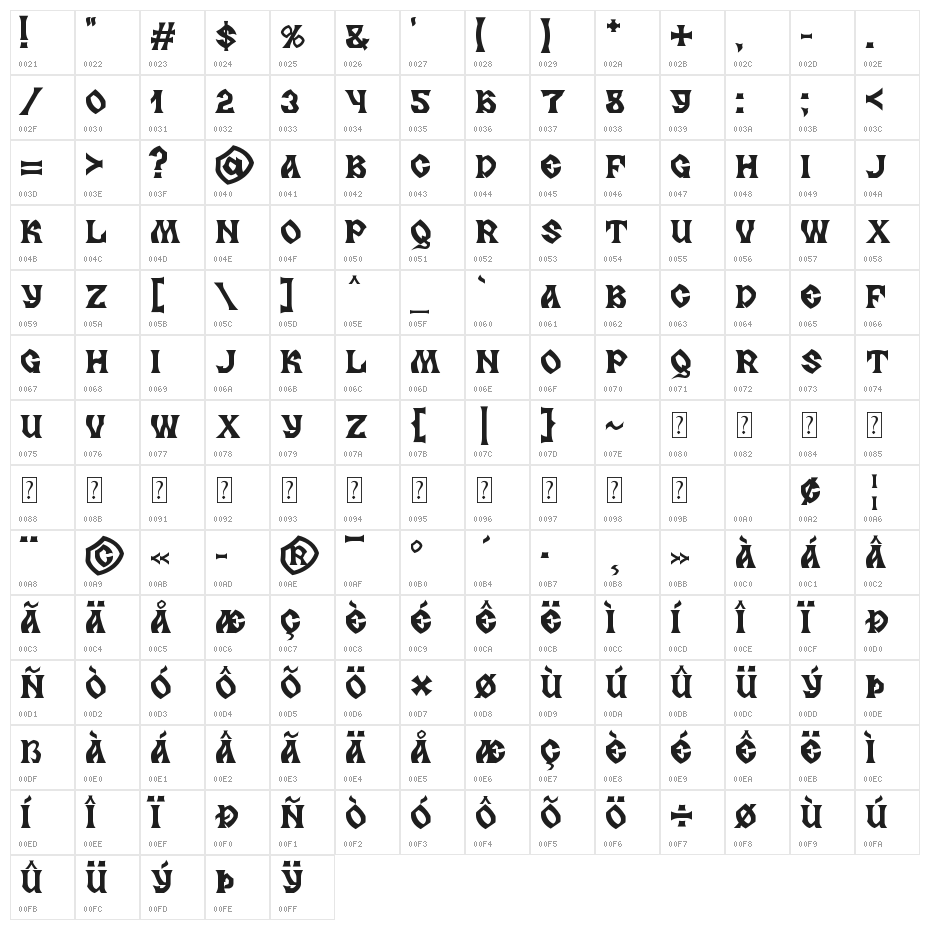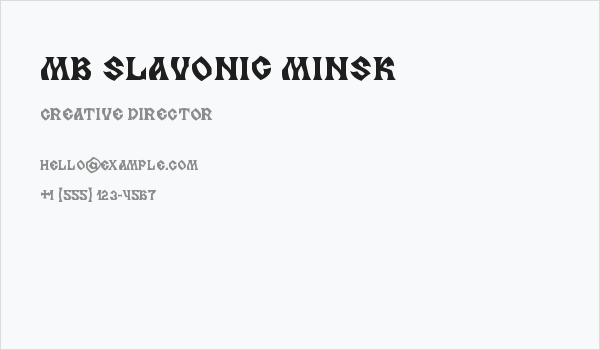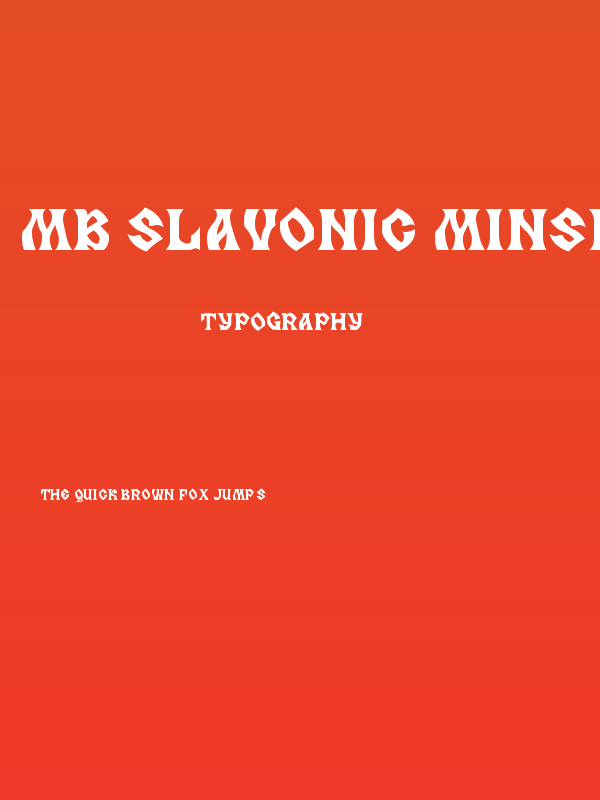
MB Slavonic Minsk Font
MB Slavonic Minsk Description
This font features a bold and striking design with a distinct medieval or gothic influence. The characters are heavily stylized with sharp angles and intricate details, giving them a dramatic and ornamental appearance. The uppercase letters are particularly elaborate, with unique flourishes and a sense of grandeur. The numbers and special characters maintain this ornate style, ensuring a cohesive look across all glyphs. The font's boldness and decorative elements make it ideal for projects that require a historical or fantasy theme.
| Proposed Projects | Ideal for fantasy book covers, historical event posters, themed invitations, and video game graphics. |